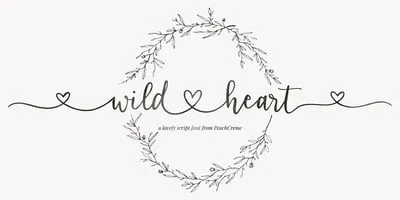
Wild Heart Font
Wild Heart Font is perfect for adventure travel branding, bohemian fashion logos, free-spirited lifestyle blogs, outdoor gear packaging, indie music album covers, and rebellious youth-targeted marketing campaigns.
Wild Heart Font is exciting because it embodies untamed freedom and passionate adventure, delivering a spirited typeface that captures the essence of wanderlust, rebellion, and living life without boundaries.
The Wild Heart Font family includes adventurous variations: Wild Heart Light, Wild Heart Regular, Wild Heart Bold, textured alternates, and decorative elements inspired by nature and nomadic lifestyle aesthetics.
Unleash your creative spirit with Wild Heart Font, an adventurous typeface that brings passionate energy and free-spirited charm to your most inspiring design projects. This captivating font excels in creating authentic branding for backpacking companies, festival merchandise, vintage motorcycle shops, and alternative lifestyle brands that celebrate independence and authentic self-expression. The dynamically crafted letterforms feature organic curves and spontaneous character variations that communicate authenticity, courage, and emotional depth while maintaining strong readability across all adventure-themed applications. Perfect for travel journals, wilderness photography books, artisan craft businesses, and social impact campaigns that need to inspire action and emotional connection, this font speaks to audiences who value experiences over possessions. Each character pulses with raw emotion and untamed energy, making every message feel like a call to adventure and personal freedom. Wild Heart Font transforms routine communications into passionate declarations that motivate audiences to follow their dreams and embrace life's wildest possibilities.